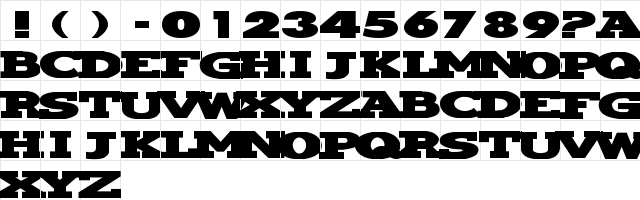
HondaFont Font Preview
HondaFont HondaFont
HondaFont Font Details
| Style | HondaFont |
| Foundry | High-Logic |
| Designer | High-Logic - Erwin Denissen |
Design Context for HondaFont Typeface
HondaFont takes a measured approach to typography — its balanced proportions and neutral character make it a reliable workhorse for both digital and print work.